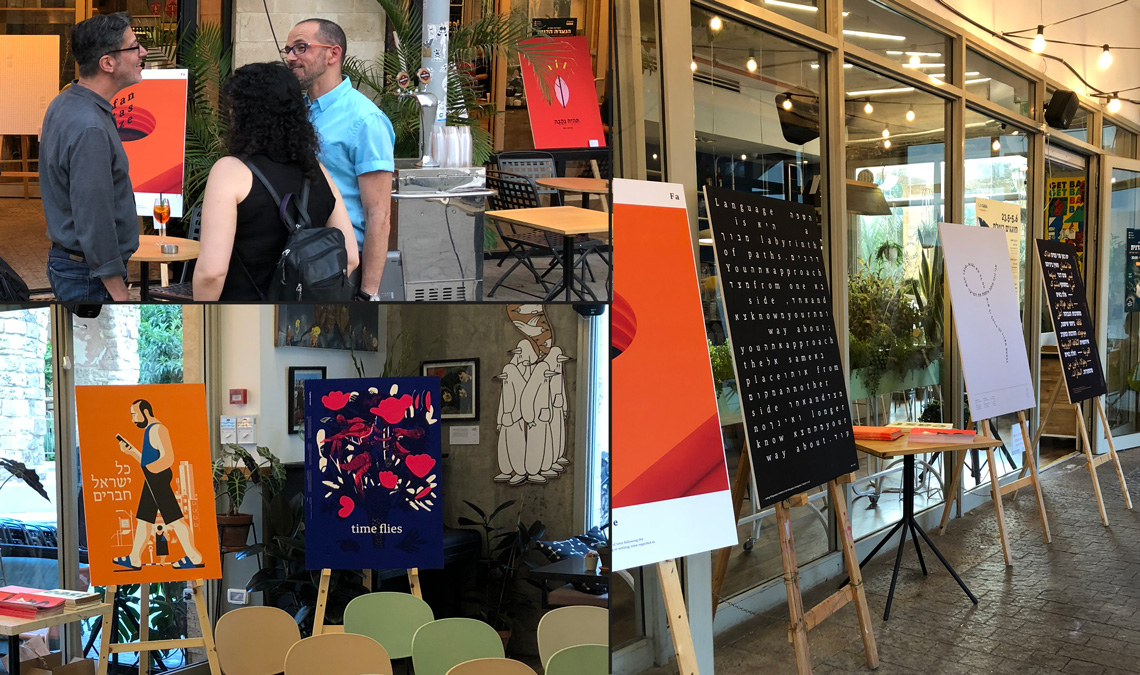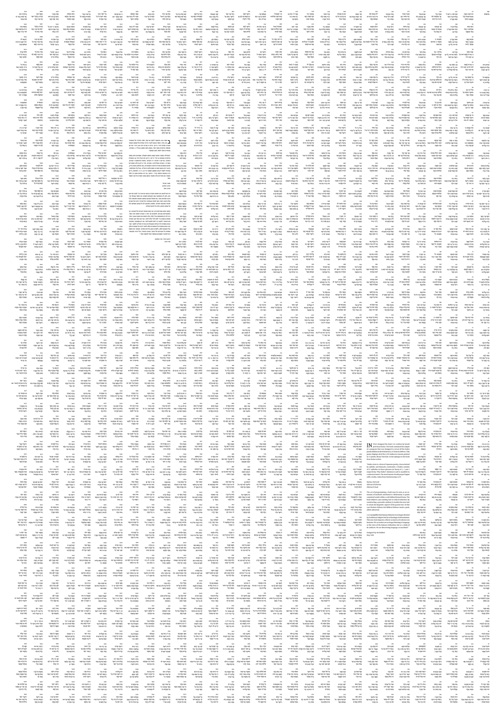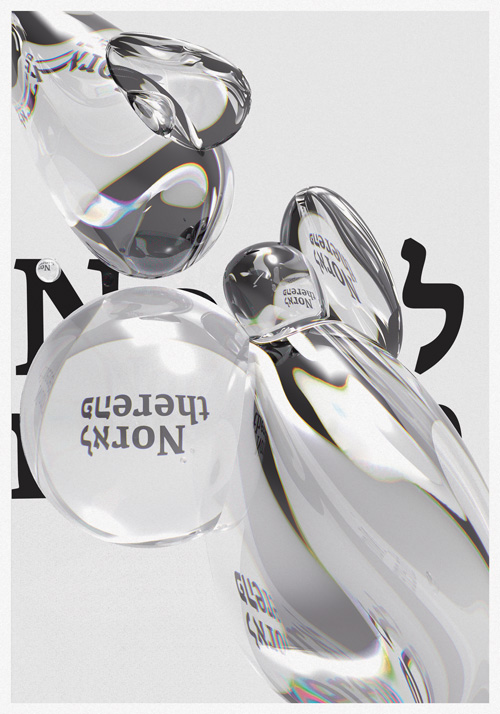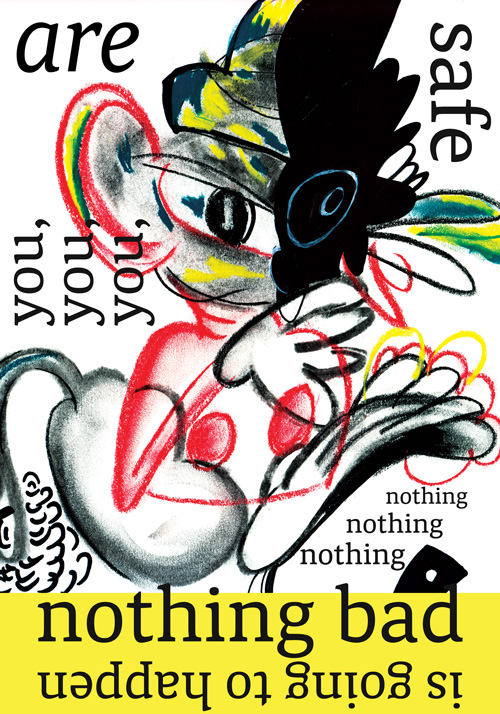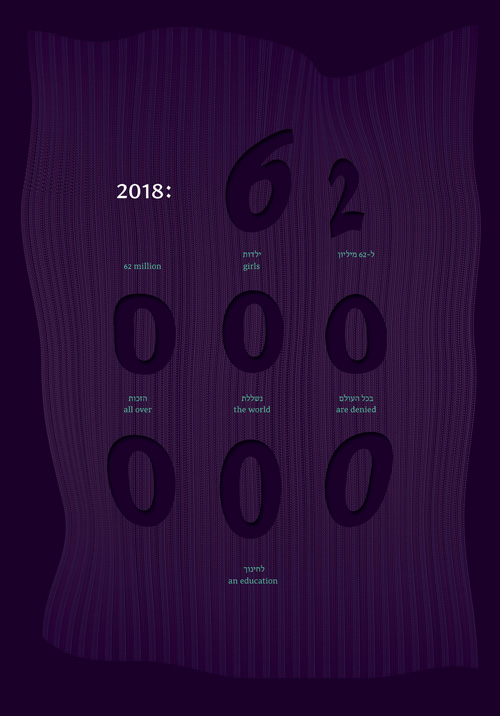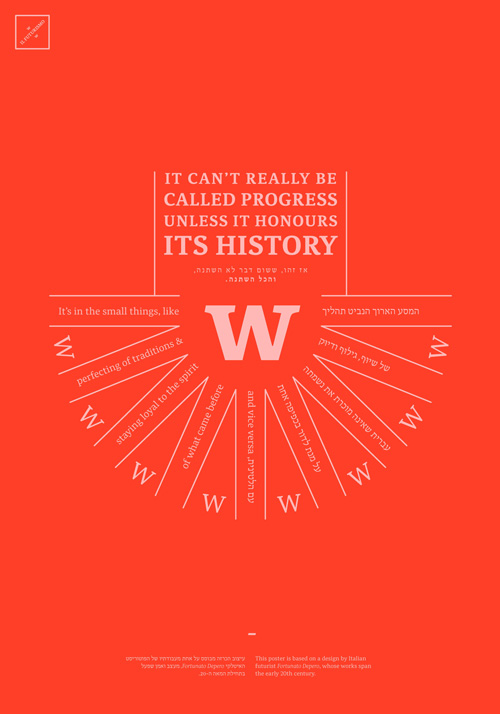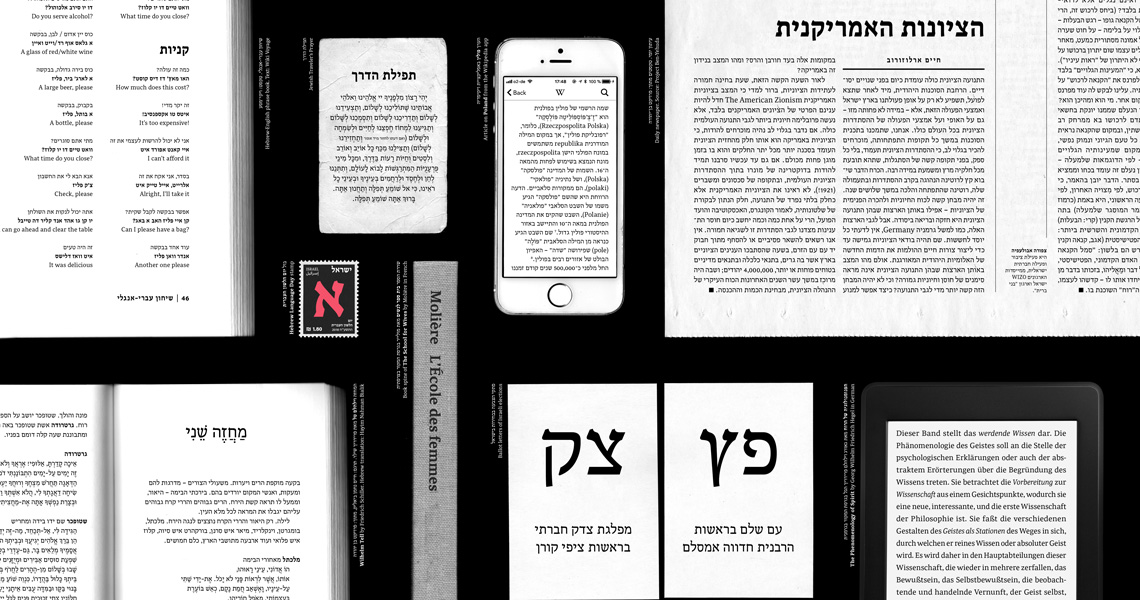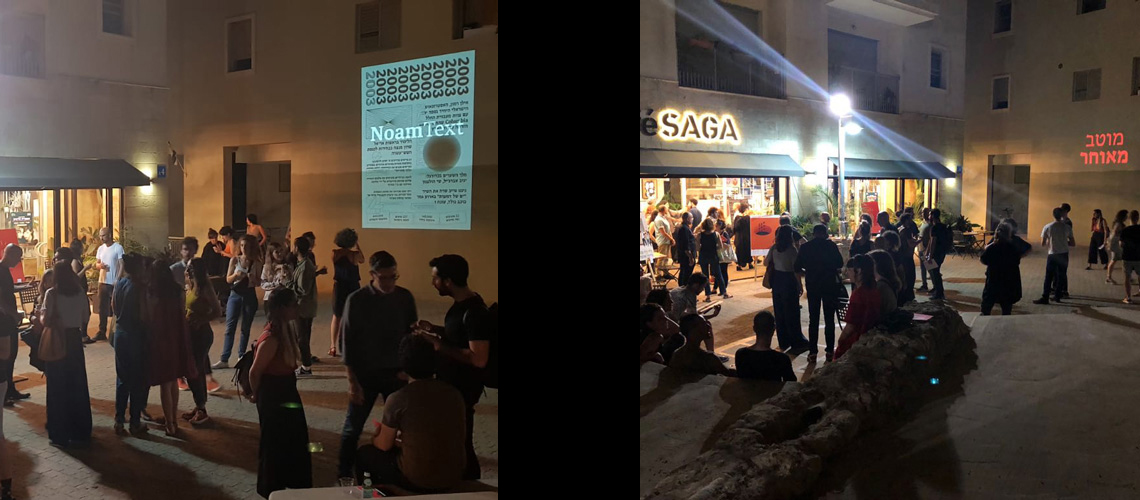
Noam Text font launch
Dichotomies: A pop-up poster exhibition in Tel Aviv featuring Noam Text by Adi Stern. The Noam Text font family enables the interweaving of an English word or sentence admist Hebrew text, without any disruption — fluently, calmly.
Specimen showing Noam Text designed by Avi Bohbot for the pop-up font launch.
After 15 years of researching, producing, and perfecting the Noam Text font family, Adi Stern and TypeTogether held a launch party in Tel Aviv to celebrate this significant milestone in Noam Text’s long journey. Veronika Burian introduced TypeTogether and its dedication to global typography while Adi shared his personal and bumpy path of developing this dual-script type family.
A group of talented artists, designers and illustrators was tasked with balancing past with future and heritage with progress in a similar way to Noam Text’s tone as well as its aesthetic and functional value. The resulting posters were exhibited in a pop-up setting at the launch venue for the evening.
Woven throughout the evening was the constant flow of Hebrew and English in a multilingual setting appropriate for the accomplished designer and his harmonious font family.